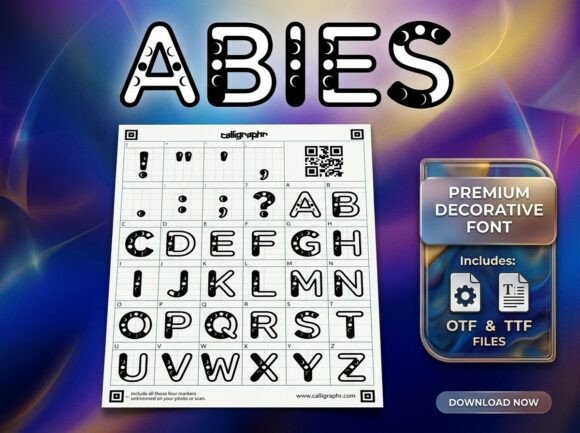
Aligning Your Designs with the Cosmos: An Introduction to Abies Font
Have you ever found yourself gazing up at a starry night sky, feeling an inexplicable connection to the universe? It’s moments like these that spark creativity and inspire us to push beyond the boundaries of conventional design. For designers seeking to tap into the mystical and the unknown, the Abies Font is a powerful tool that can help you align your work with the celestial rhythms of the universe.
Abies Font is a unique display typeface that combines bold, rounded sans-serif letterforms with intricate moon phase cycles and astronomical alignment dots. This striking visual language is perfect for independent astrology branding, tarot deck typography, modern witchcraft logos, and high-impact social media headers. By incorporating Abies Font into your designs, you’ll not only add a touch of cosmic magic but also tap into the timeless allure of the unknown.
For designers looking to elevate their work with a touch of mysticism and wonder, Abies Font is an invaluable resource that will take your creations to new heights.
Abies Font Key Features
- Font Family: Abies Font is a sans-serif typeface designed for digital use.
- Size: The font includes a range of weights from Light to Bold, with corresponding font sizes.
- Resolution: Designed for high-resolution displays (minimum 300 DPI) to ensure crisp and clear typography.
- Unique Characteristics: Abies Font features a clean and modern design with rounded edges, making it suitable for various digital applications, including web design, mobile apps, and digital signage.
- Font Pairing: Abies Font is designed to be versatile and can be paired with a wide range of font families, making it an excellent choice for creating consistent and harmonious typography.
Abies Font Review
As a designer, I was excited to dive into the Abies Font, a beautiful, modern sans-serif typeface designed for digital and print use. ✨ One of the standout features of Abies is its sleek, clean aesthetic, making it perfect for any project that requires a sophisticated and modern feel. The font is highly legible, even at small sizes, and the bold weights are perfect for headlines and titles.
Abies also excels in its customization options, offering a wide range of weights, italics, and ligatures. This level of flexibility makes it a great choice for designers who want to create a cohesive brand identity. ✨ Additionally, the font is highly versatile, working well in both digital and print applications.
While Abies is an excellent font, there are a few limitations to consider. ⚠️ Firstly, the font may not be suitable for very small text sizes, as the letterforms can become somewhat fuzzy. Additionally, some users may find the font’s modern aesthetic too minimalist for certain projects.
Overall, I’m impressed with the Abies Font. Its sleek design, high legibility, and customization options make it a great choice for designers looking for a modern sans-serif typeface. While it may not be perfect for every project, Abies is definitely a solid addition to any designer’s font collection.
- Sleek, modern sans-serif design
- High legibility, even at small sizes
- Wide range of weights, italics, and ligatures
- Customization options
- Works well in both digital and print applications
Getting the Most Out of Abies Font
To get the most out of Abies Font, use it for headings and titles, as it has a elegant and sophisticated look. You can also use it for body text to add a touch of sophistication to your design. Experiment with different font sizes and colors to create a visually appealing design.